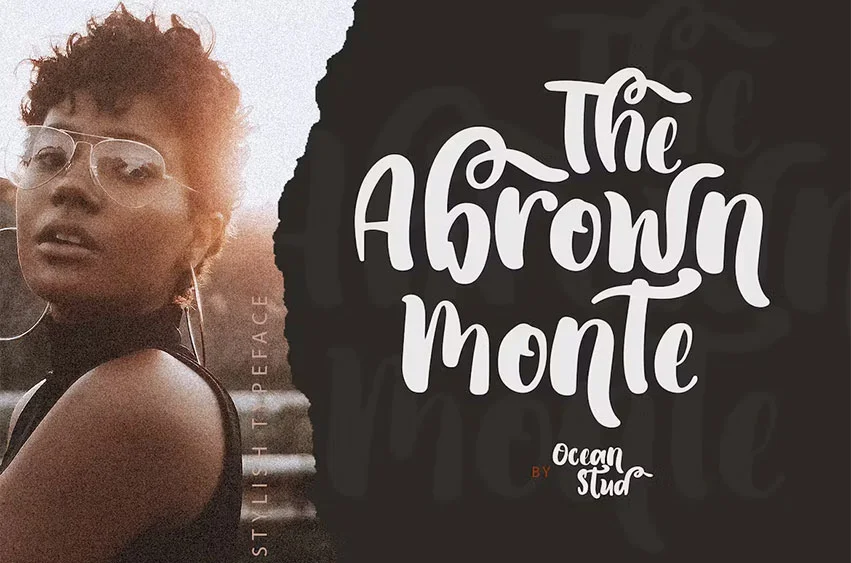
The Brown Monte Font is an elegant handwritten font. It brings a beautiful and attractive typeface. Made for any professional project branding. It is the best for logos, branding, wedding and quotes.